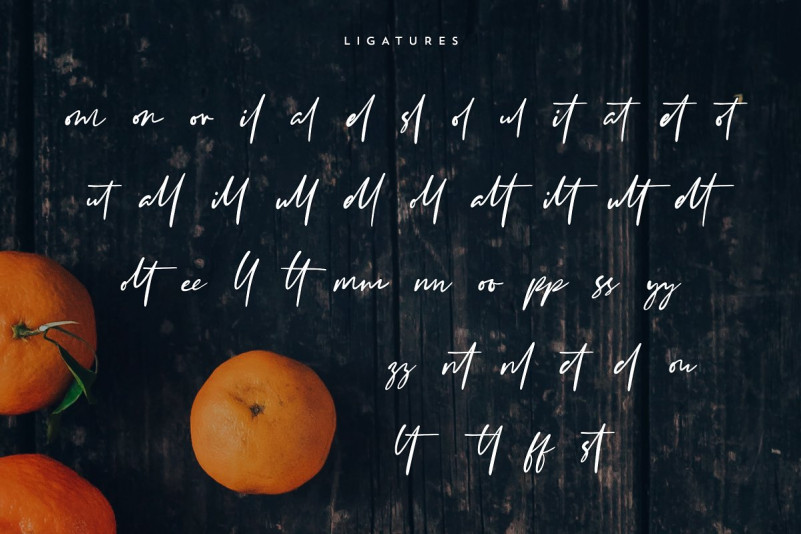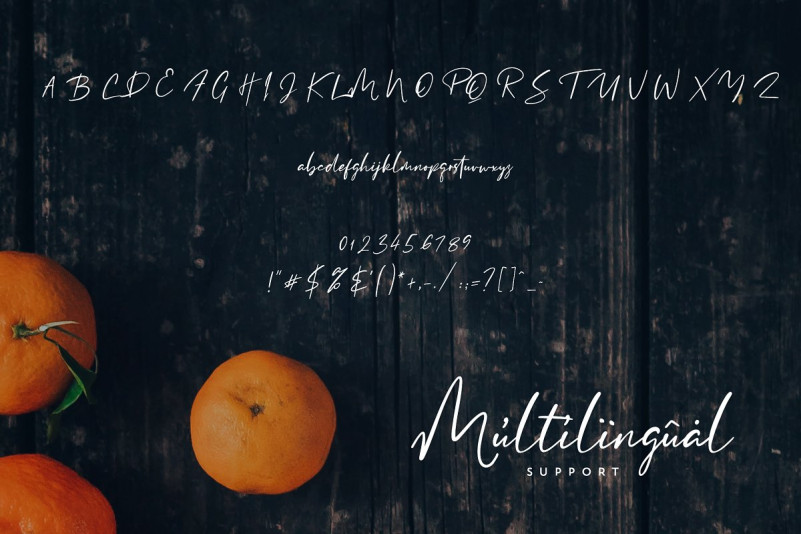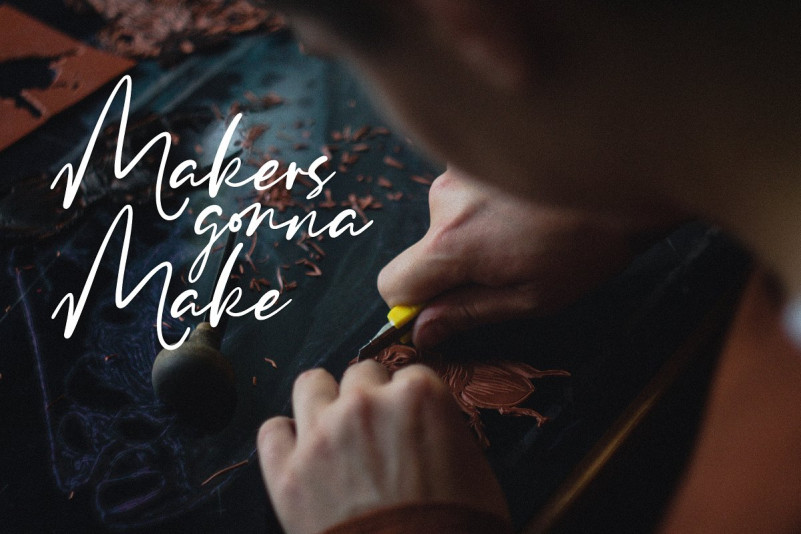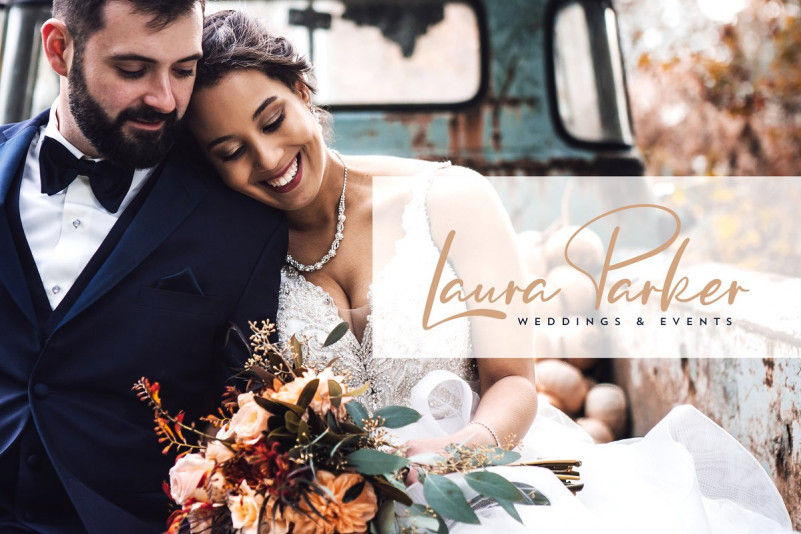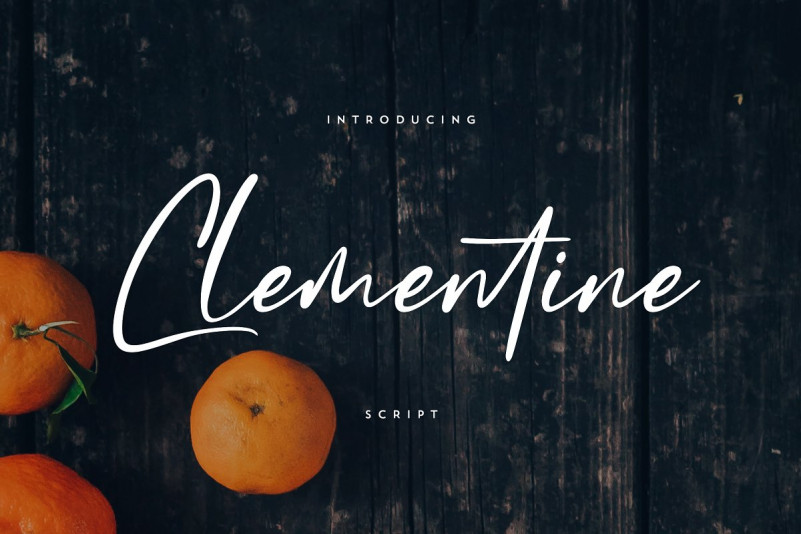
Clementine Script Font
Introducing Clementine Script Font.
Clementine font is clean script with multilingual support. It\’s a very versatile font that works great in large and small sizes.
Clementine is perfect for branding projects, home-ware designs, product packaging, magazine headers – or simply as a stylish text overlay to any background image.
– Uppercase,lowercase,numeral,punctuation & Symbol
– Multilingual
– Ligatures